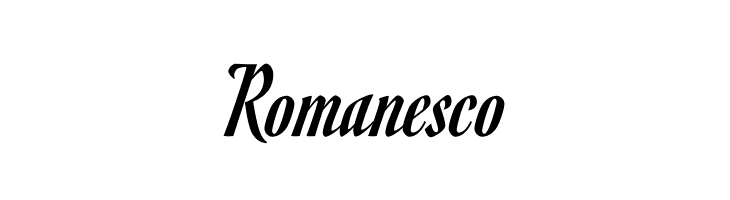
( Fonts by Astigmatic )
A bold, dynamic script font with high contrast and elegant flourishes.
( Fonts by Brian Kent )
A bold, rounded font with a futuristic and digital aesthetic.
( Fonts by Agustina Sri Suryanti )
A playful, bold font with whimsical, rounded strokes and a lively design.
( Fonts by Arterfak Project )
A bold, playful font with a hand-drawn, energetic style.
( Fonts by Tokopress )
A bold, playful font with a cartoonish style and consistent stroke weight.
( Fonts by Jordi Carreras )
A bold, textured font with a vintage, handcrafted appearance.
( Fonts by Fontherapy )
A bold, playful font with cartoonish, uneven strokes and quirky cutouts.
( Fonts by Cpr.Sparhelt )
A bold, distressed font with a vintage, stamped appearance.
( Fonts by BrandSemut )
A playful, whimsical font with exaggerated serifs and a hand-drawn look.
( Fonts by Tokopress )
A playful, bold typeface with rounded edges and a friendly, modern style.